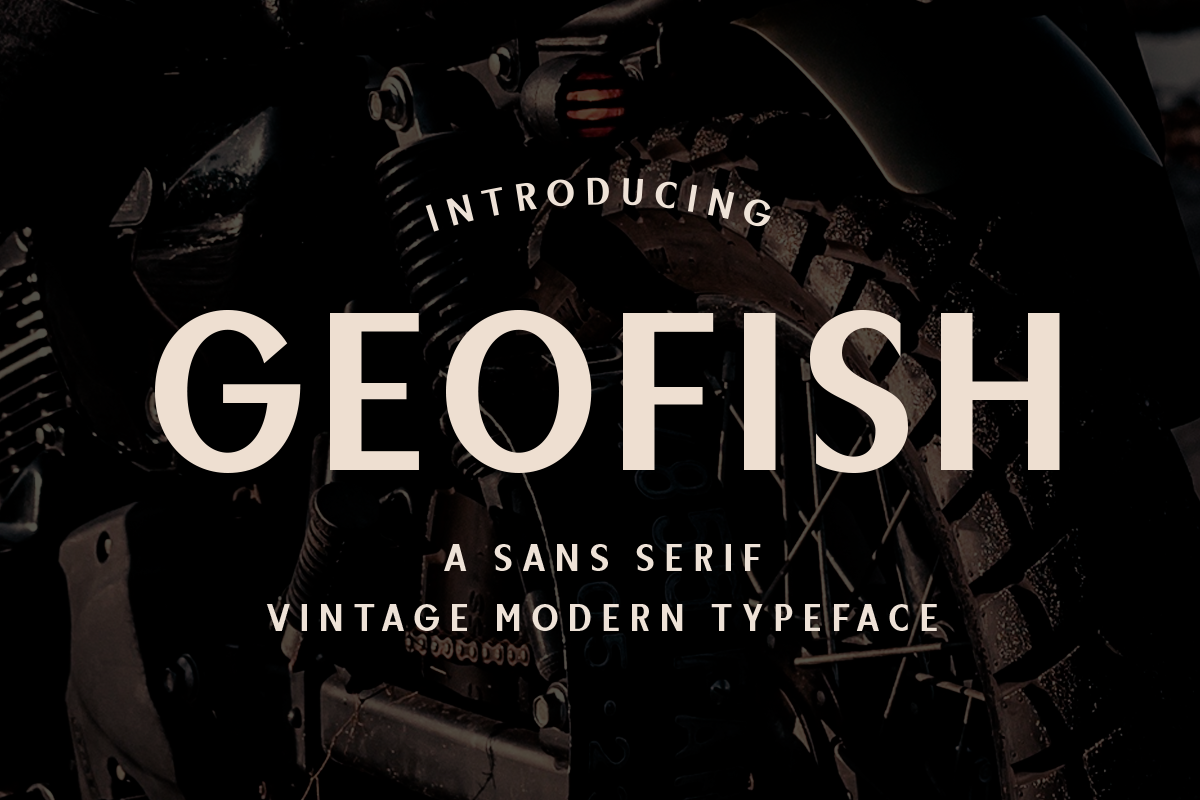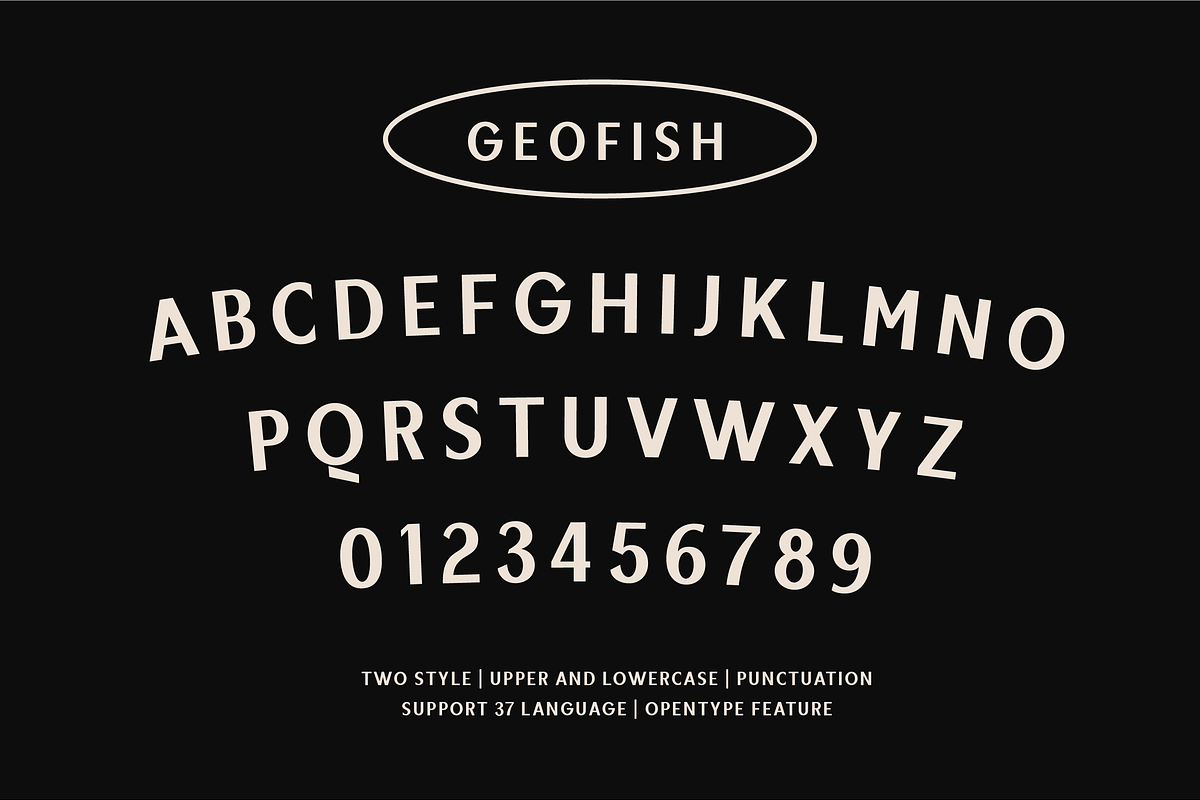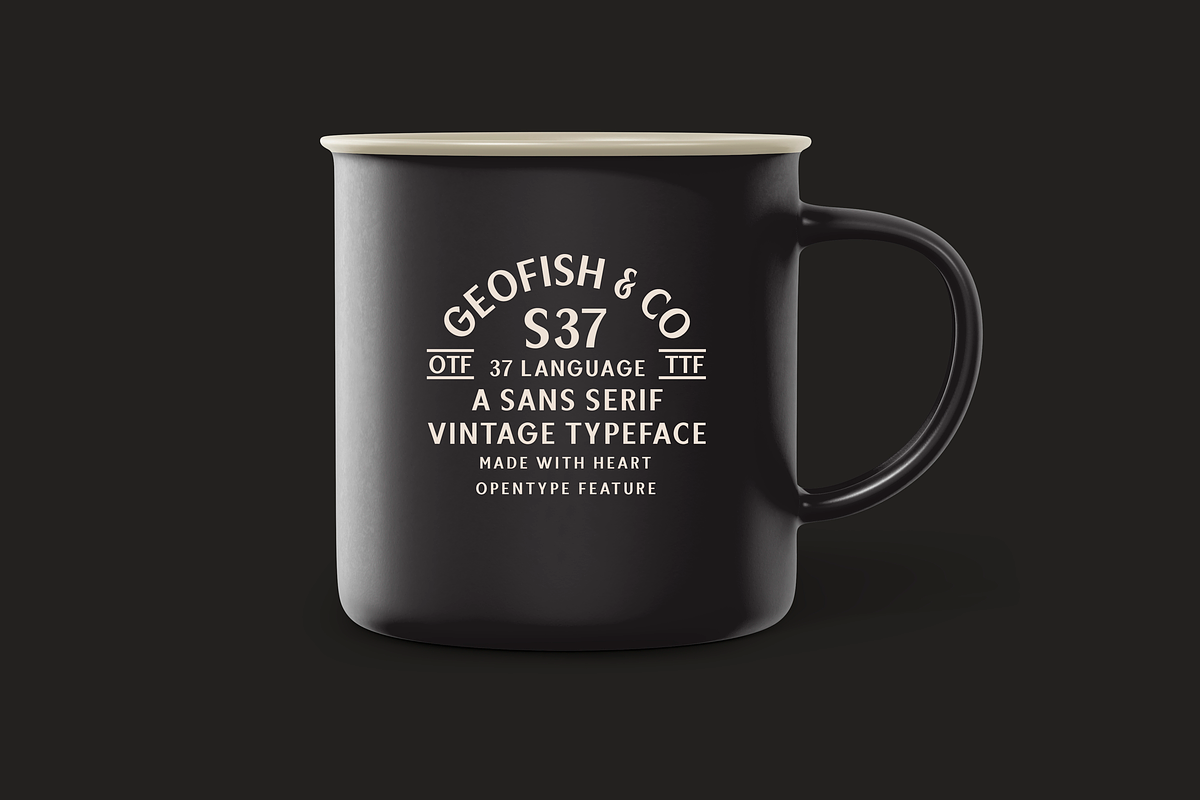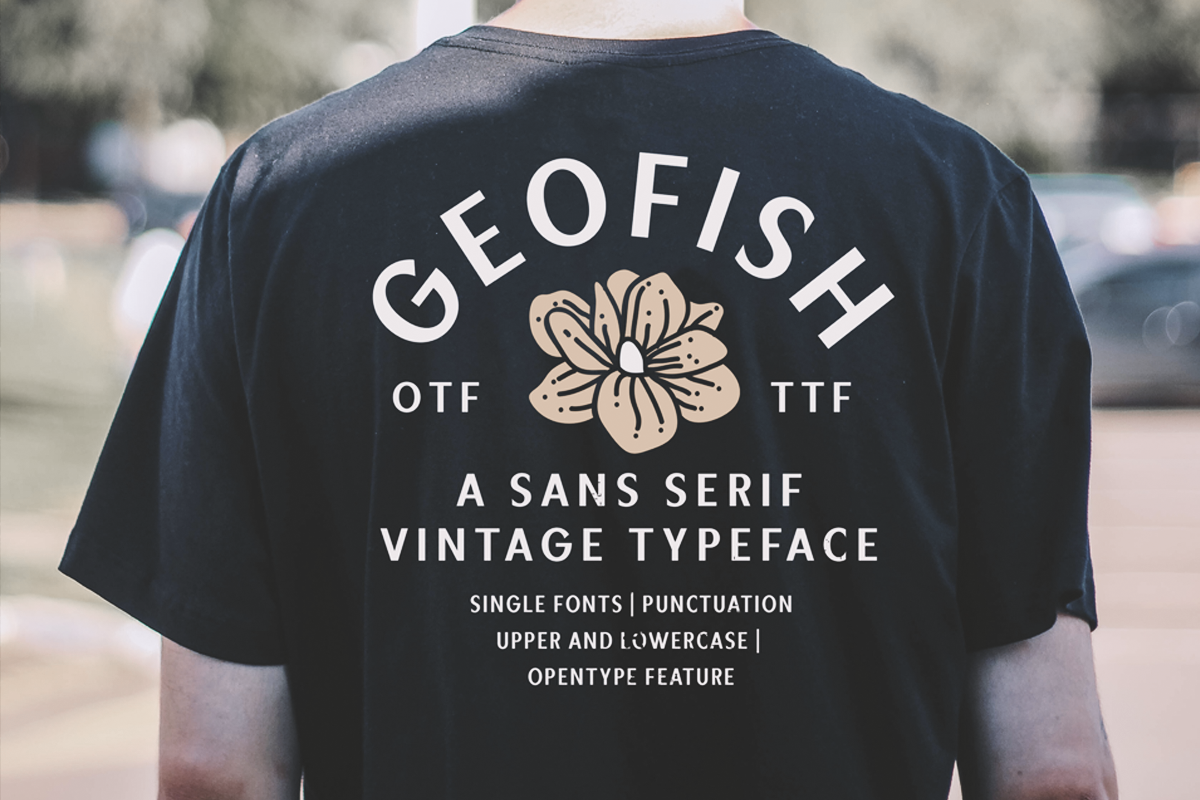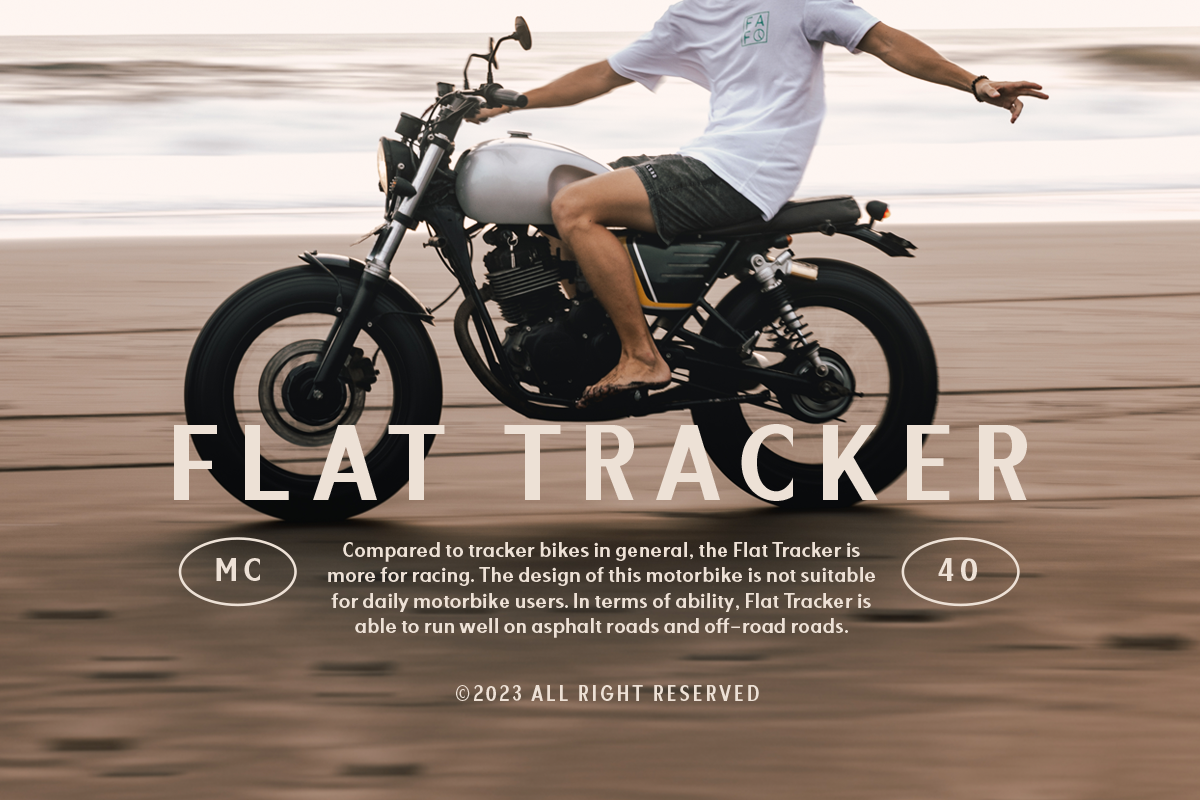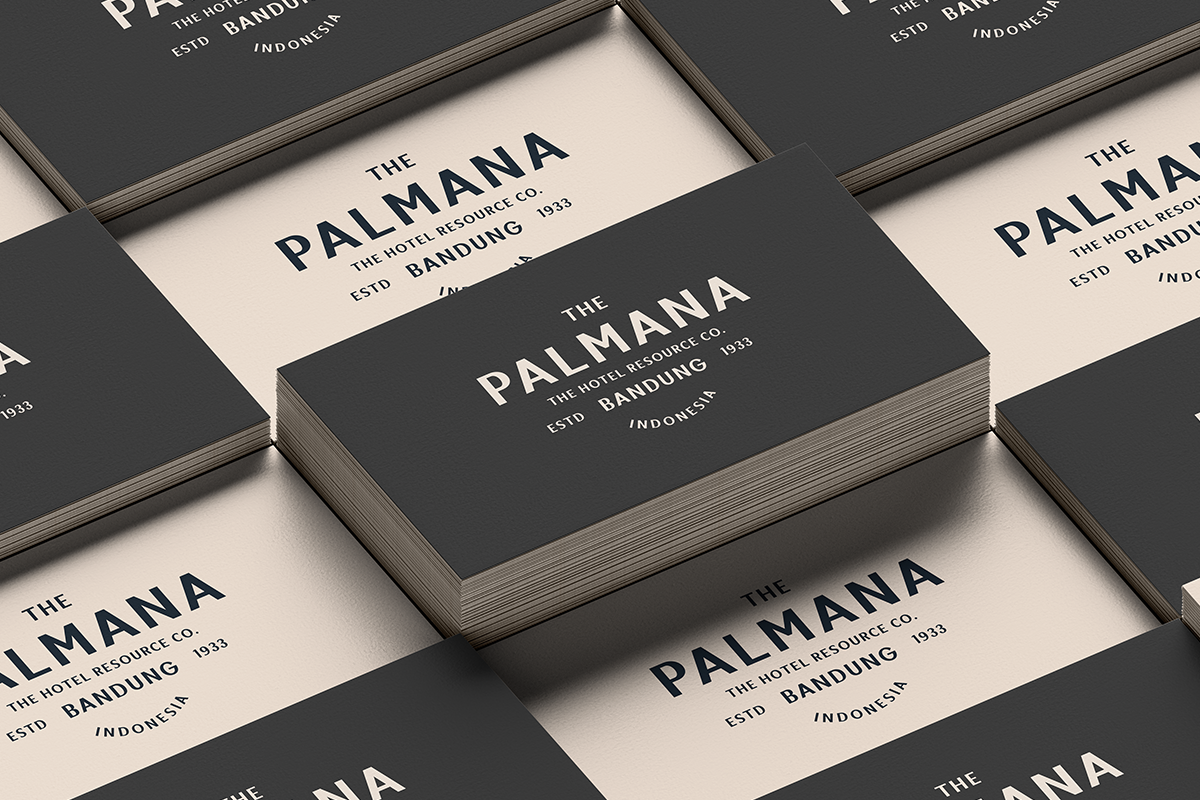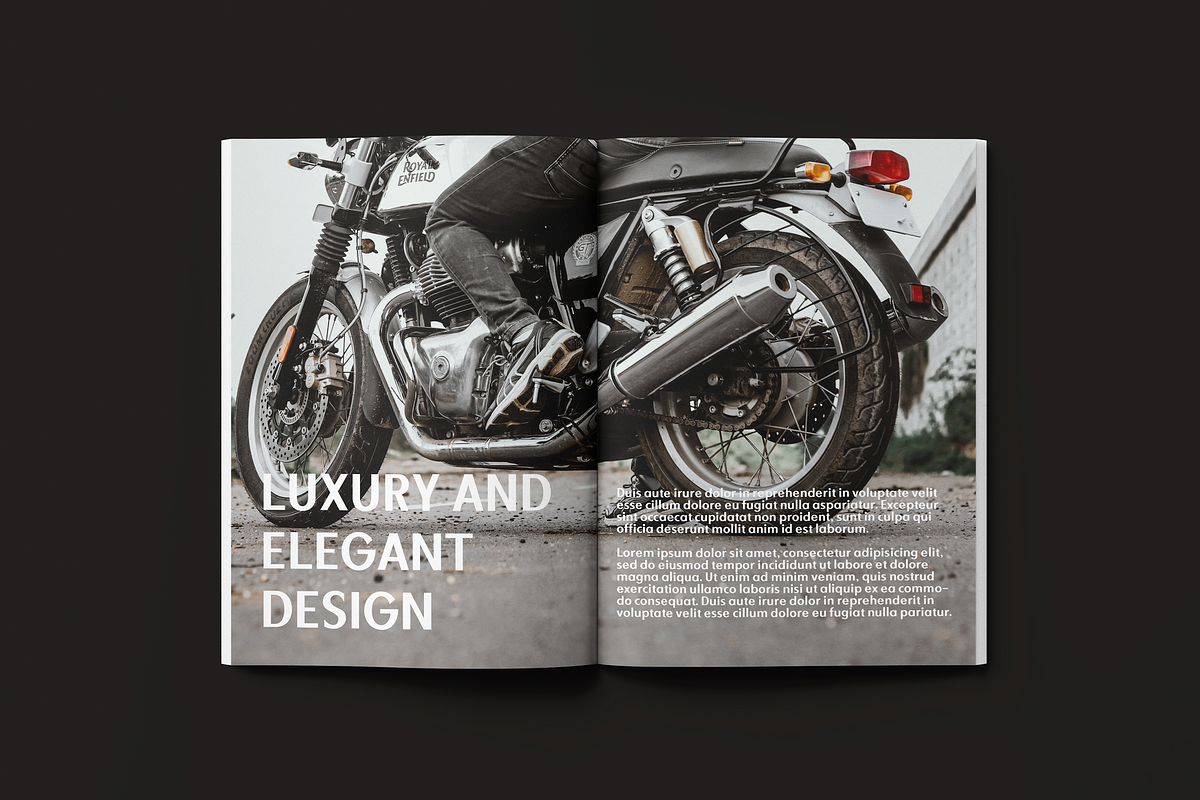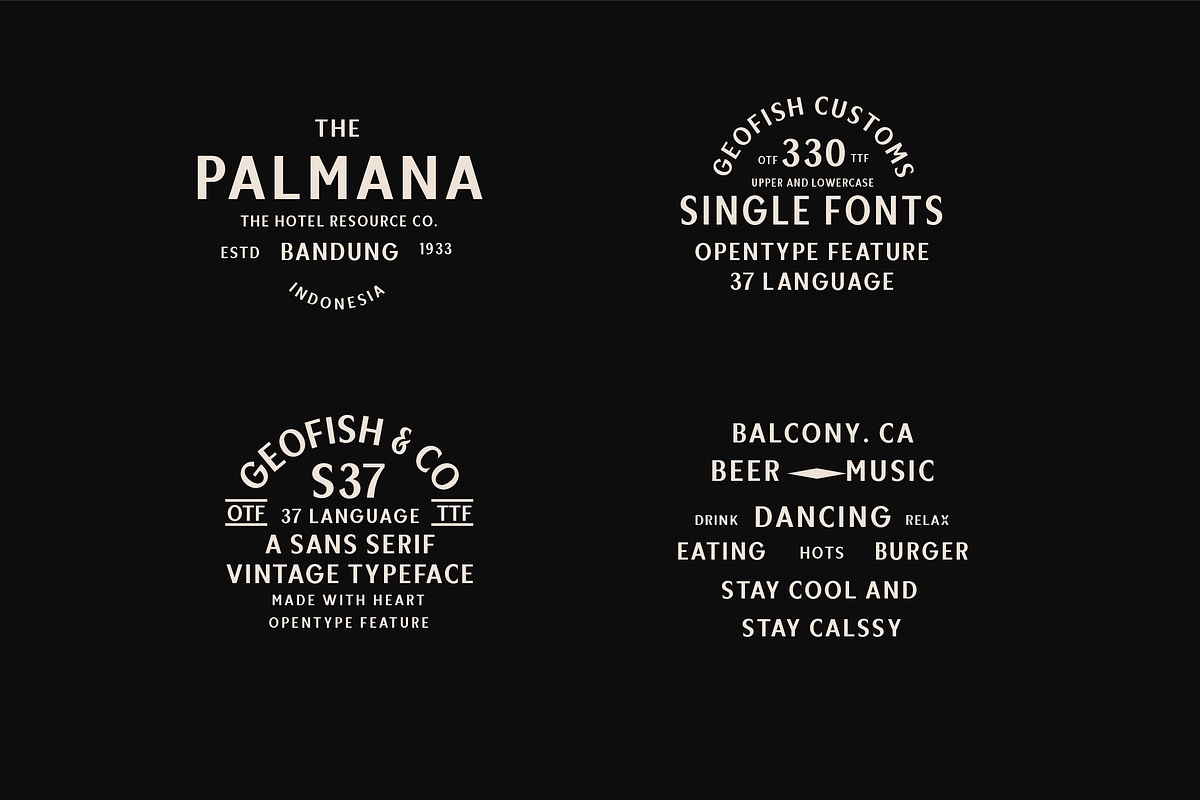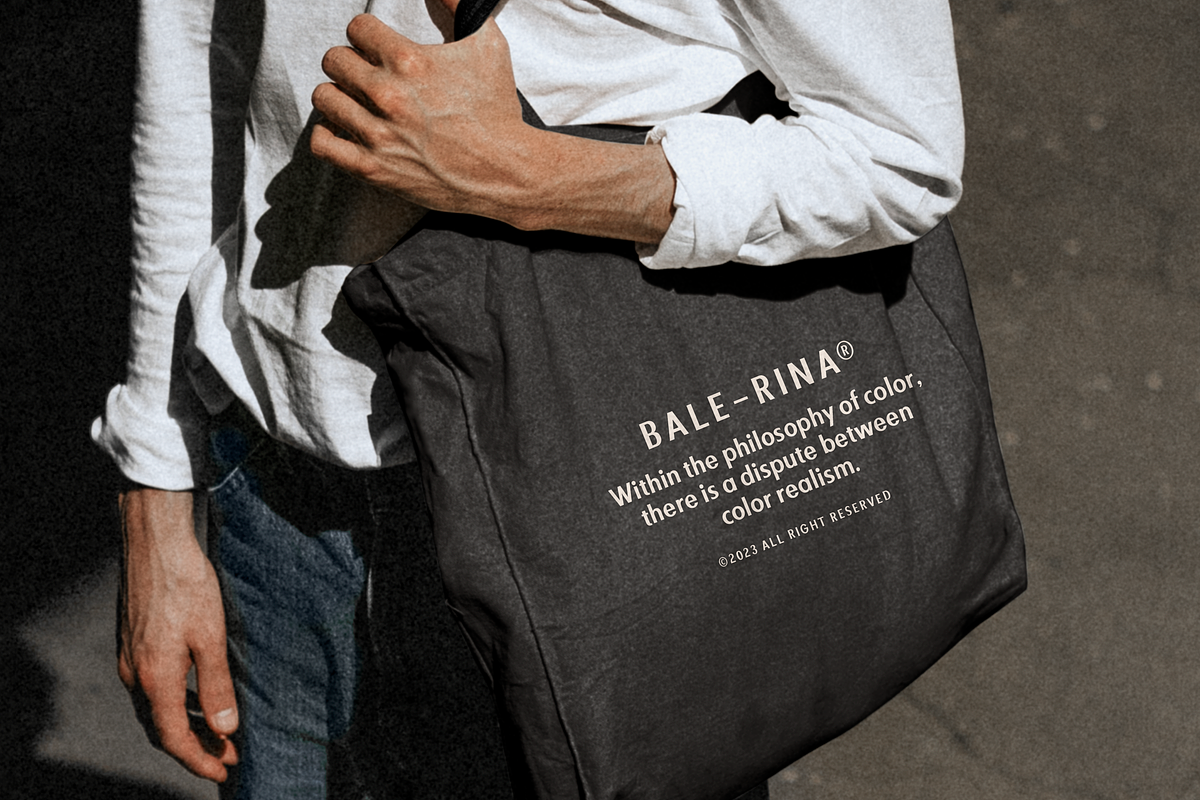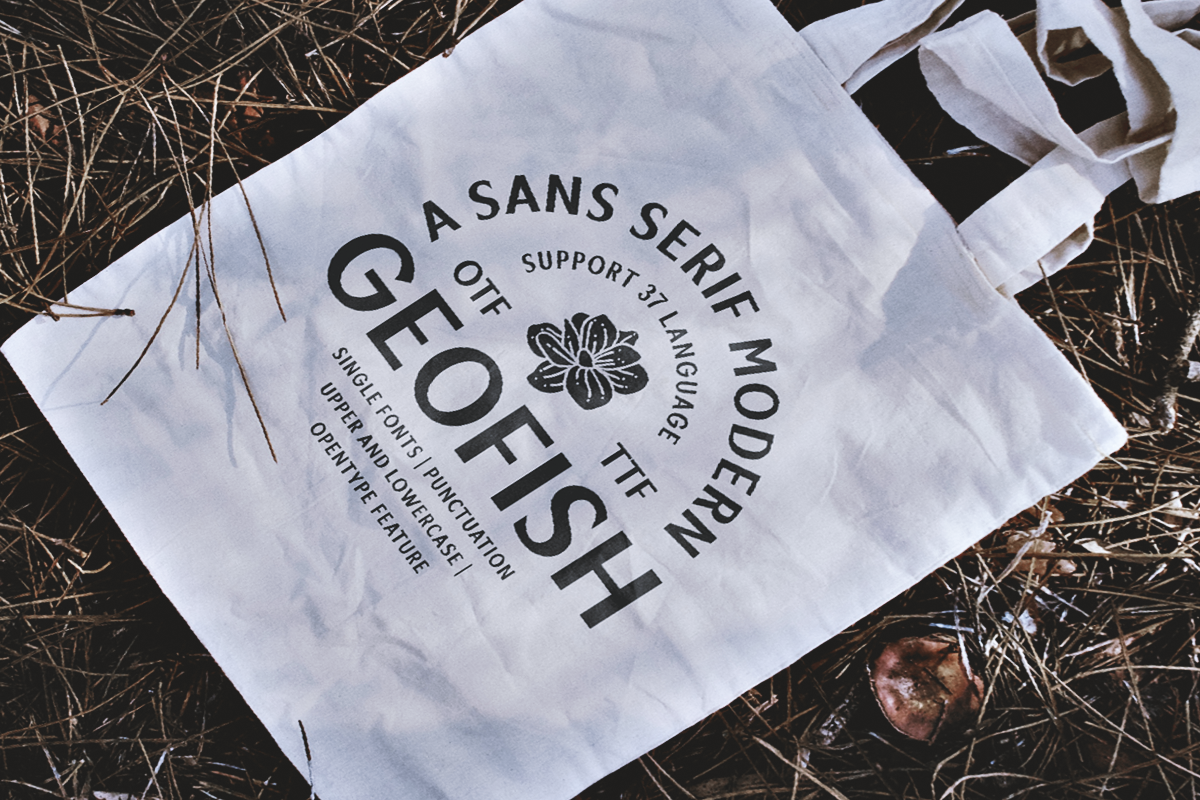
Geofish Vintage Font
With its classic look and modern feel, Geofish is the perfect font for anyone looking to add some vintage flair to their designs. So if you want to make a statement with your work, this is the font for you!
Geofish is the perfect font for those who appreciate vintage style with a modern touch. It’s ideal for creating unique and stylish designs for t-shirts, logos, badges, and more.
- Geofish Vintage Modern is one font you need
- Multilingual support and complete character set
- Multilingual support in this modern sans serif font
- Well known for its exceptional readability